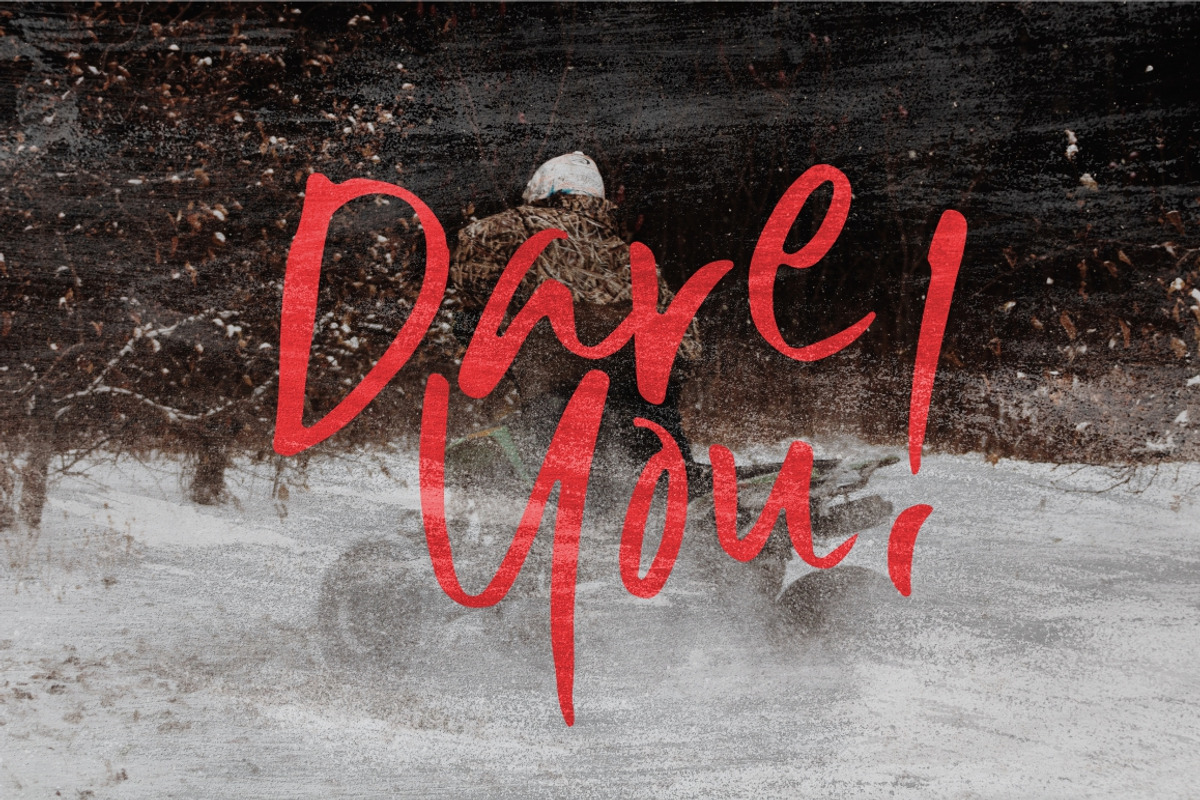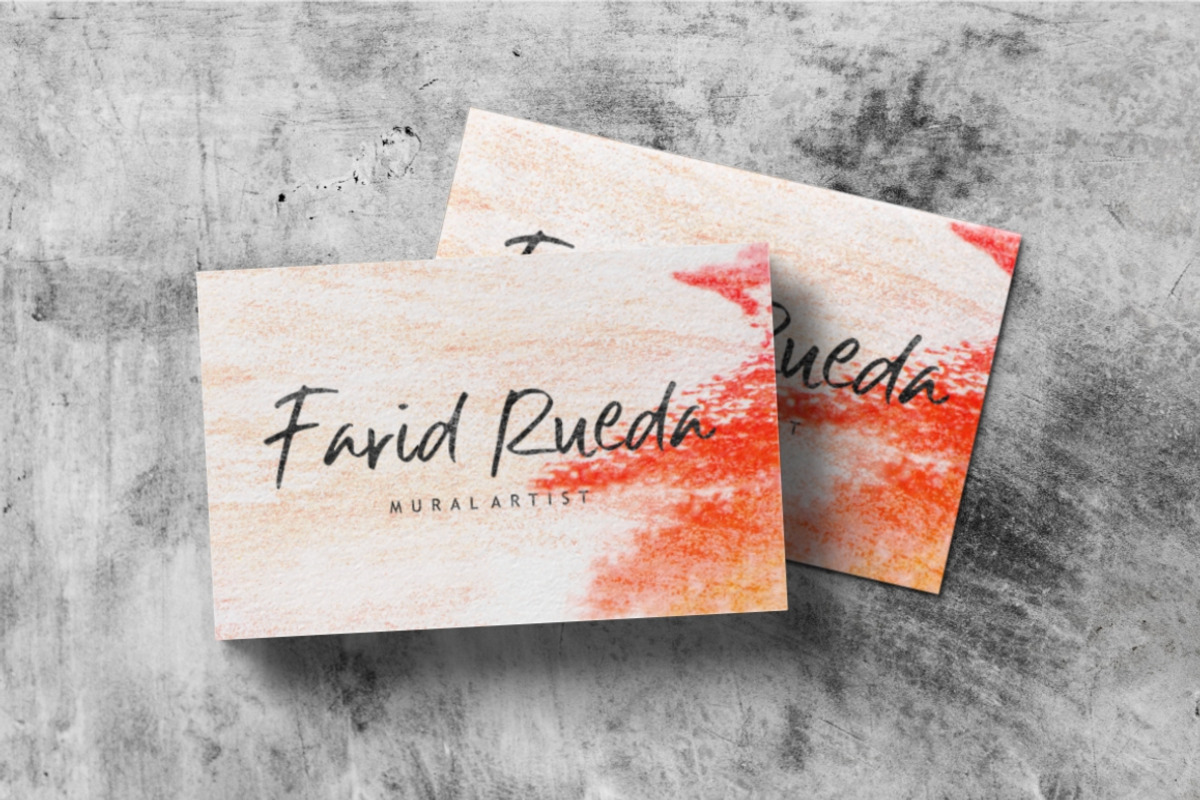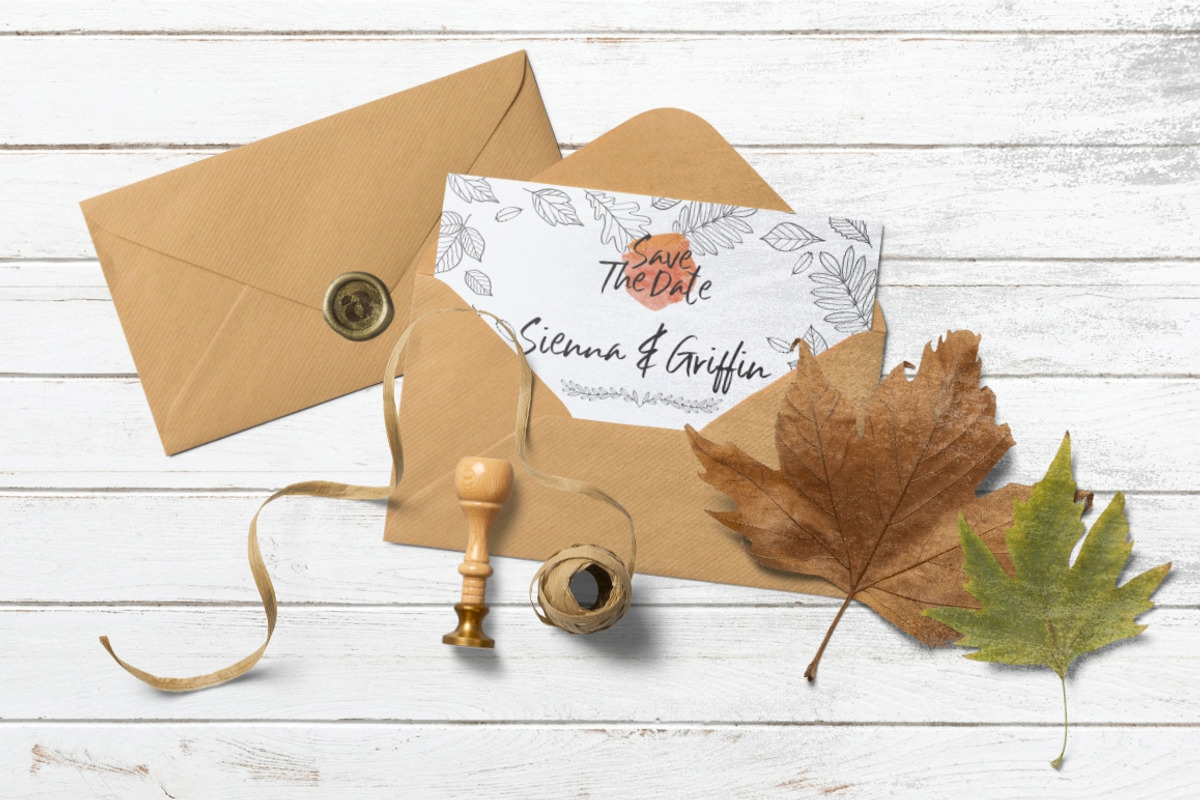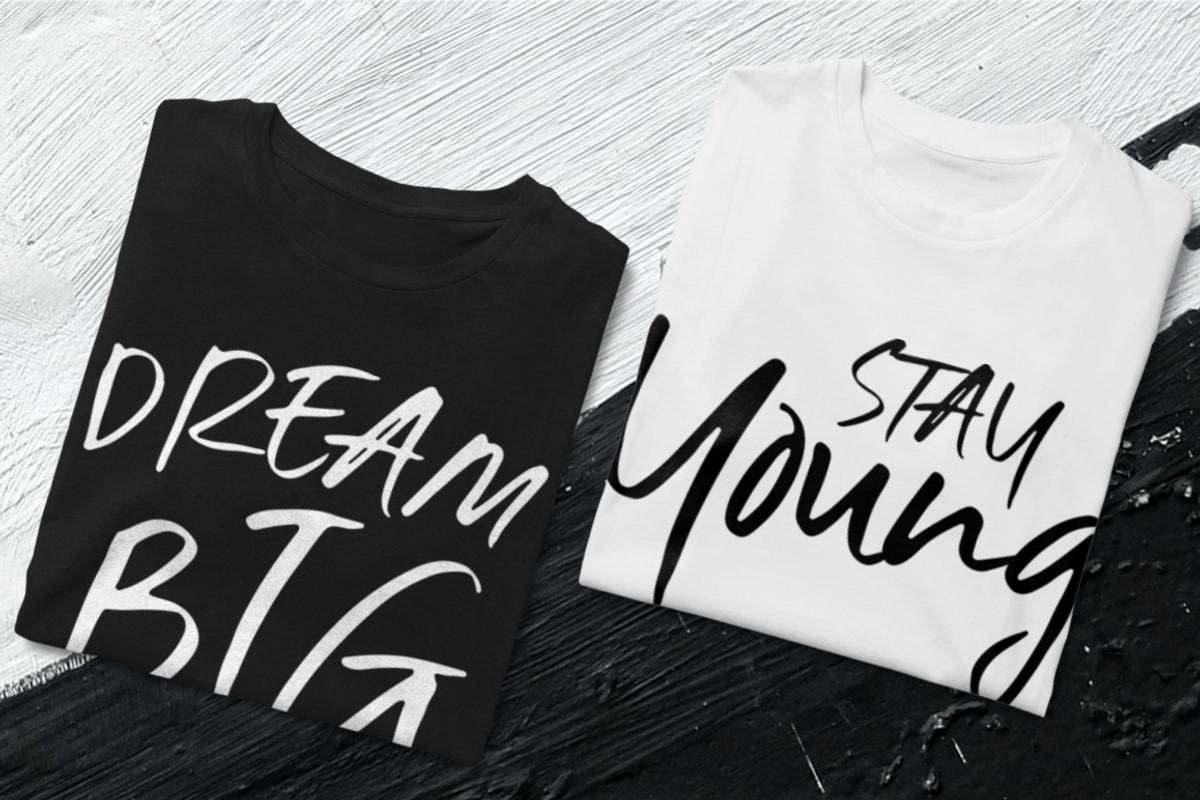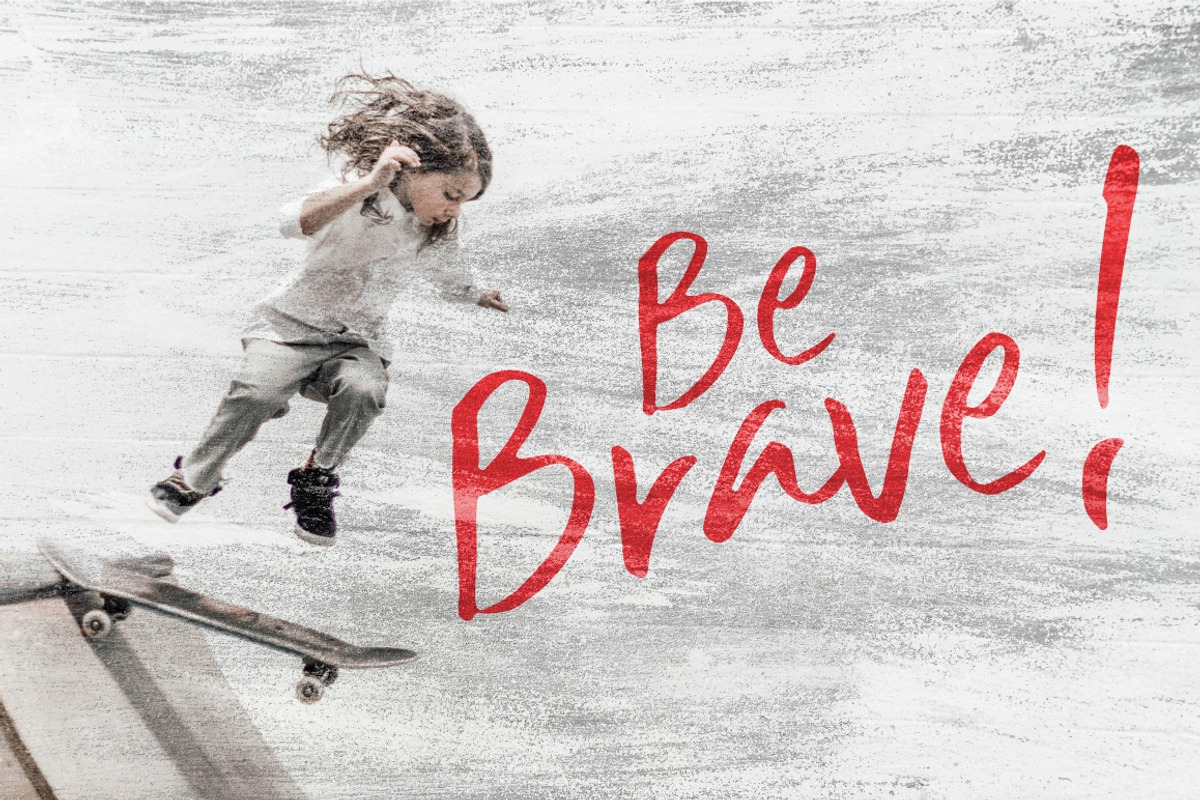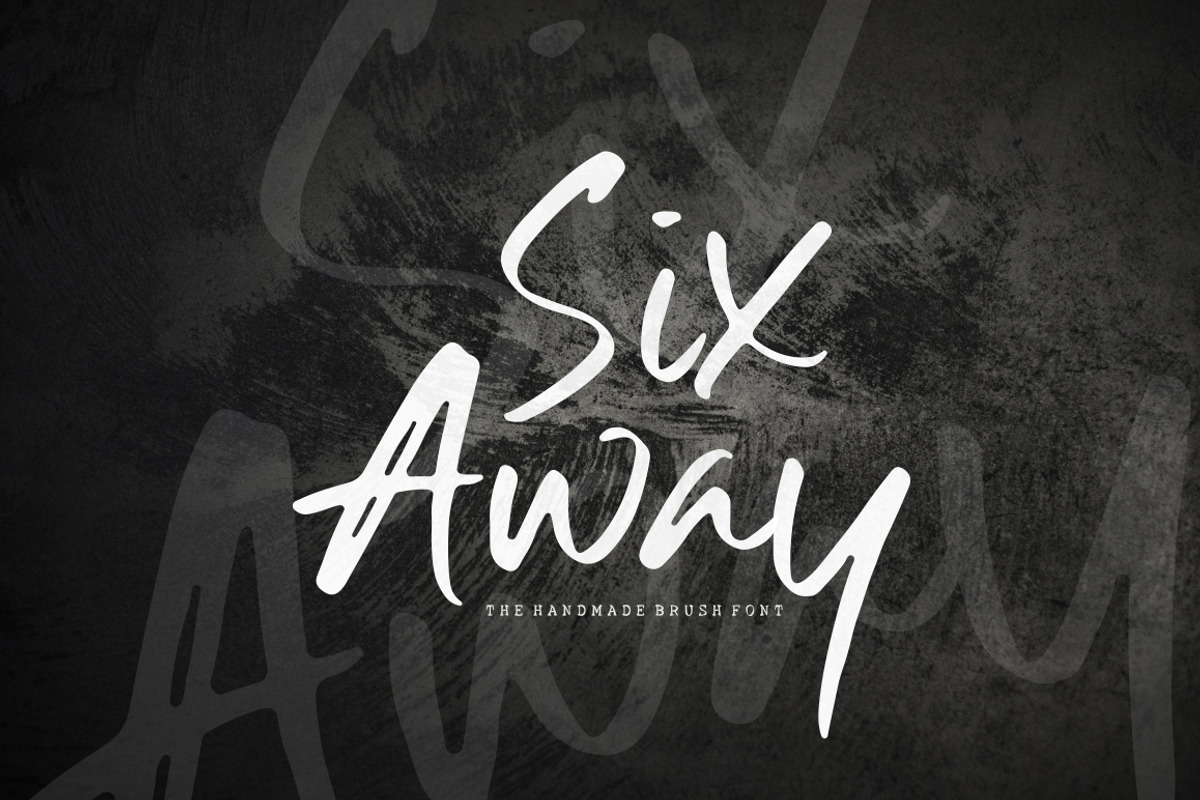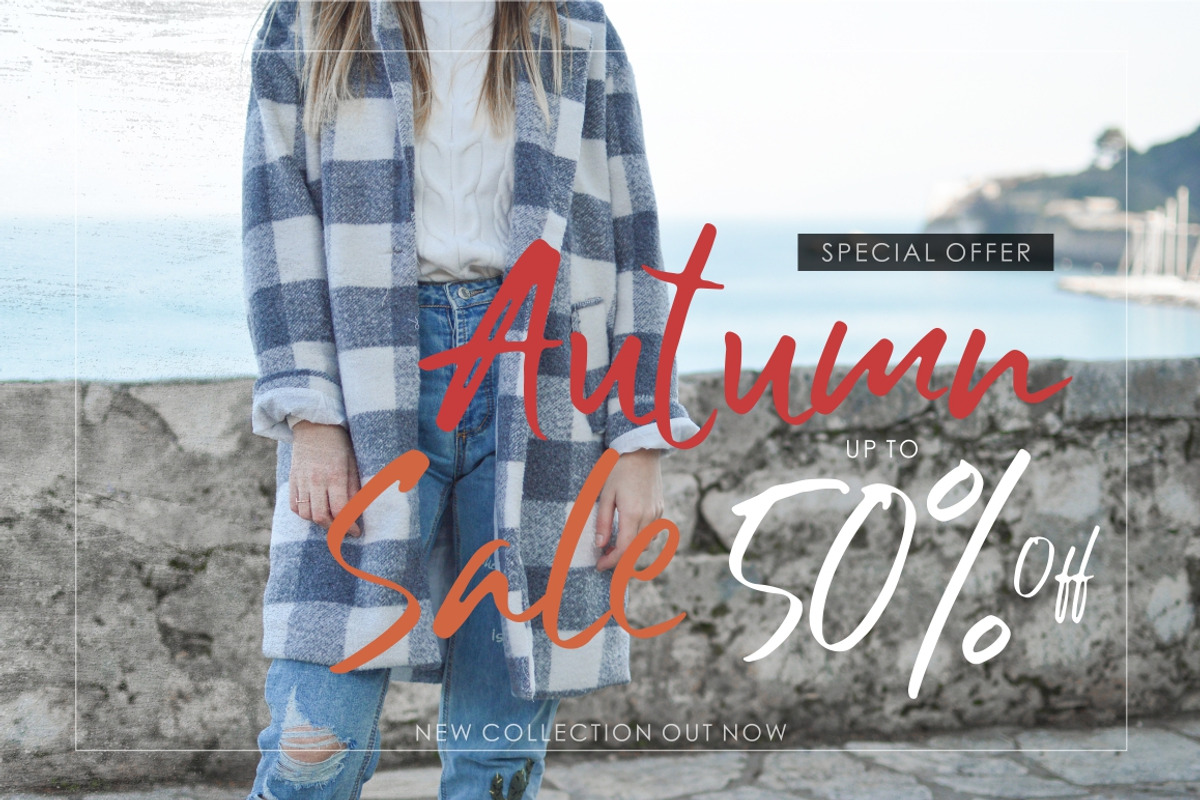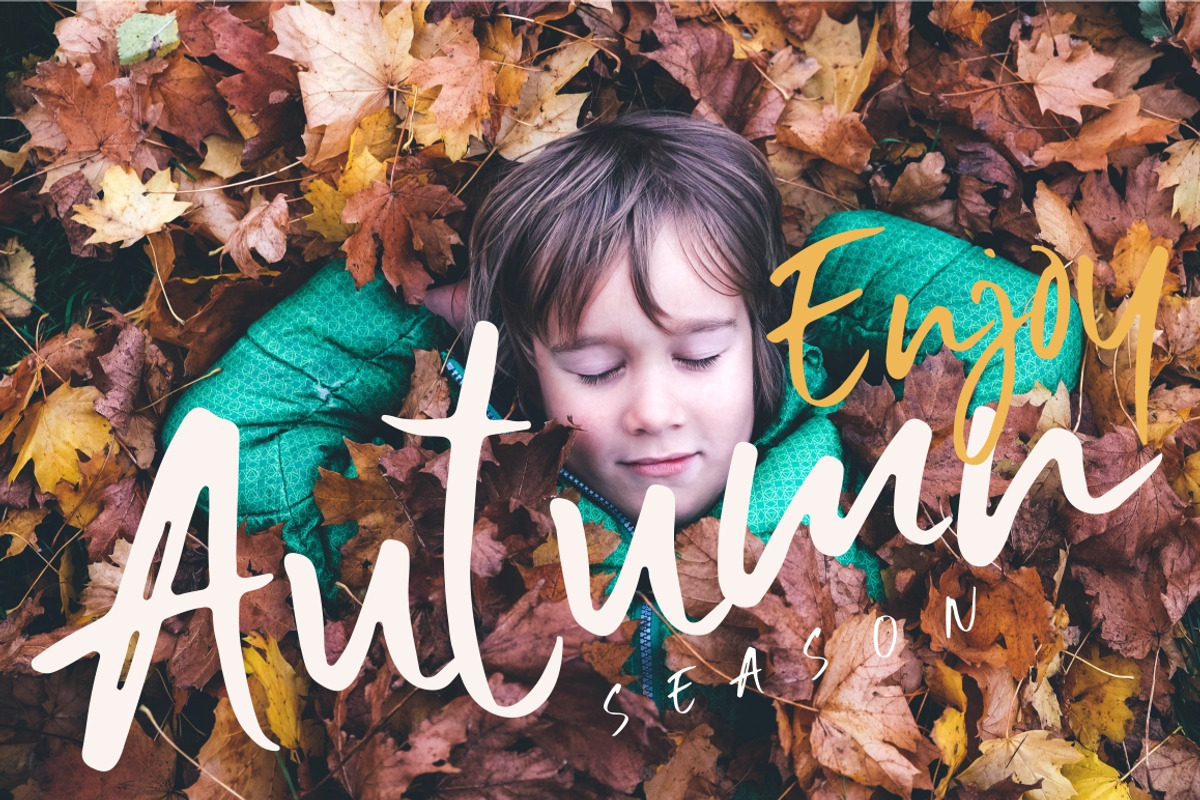
Six Away-The Handmade Brush Font
Hi Everyone, we will introduce Six Away-The Handmade Brush Font with a shape that is not monotonous. This font has its own style and can be assembled into a natural word. Six Away is made with a quick stroke of the brush pen, so that it looks original and can be used for all your project needs. Each glyph has its own uniqueness and when meeting with others will provide a dynamic and pleasing proximity. This font can be used at any time and any project. You can see in the presentation picture above, Six Away looks natural in some examples of design project.
So, with its unique and natural strokes, Six Away can't wait to give its touch to all your design projects such as watermarks, quotes, wedding invitations, posters, wedding, branding, logos, fashion, apparel, letters, invitation, stationery, product designs (like drinks and food), etc.
Besides that, Six Away also has some ligature that gives a surprise when you type the same lowercase glyph twice. The ligatures are aa, cc, dd, ee, ff, gg, ii, ll, mm, nn, oo, pp, rr, ss, tt, and uu.
Lowercase and Uppercase
Numeral, Punctuation, and Symbols
Multilingual Glyphs (ÀÁÂÃÄÅÆÇÈÉÊËÌÍÎÏÐÑÒÓÔÕÖØÙÚÛÜÝßàáâãäåæçèéêëìíîïðñòóôõöøùúûüýÿ) which can be used in various languages such as Afrikaans, Albanian, Catalan, Danish, Dutch, English, German, Icelandic, Indonesian, Italian, Malay, Norwegian, Portugese, Spanisch, Swedish, Zulu, and Many More.